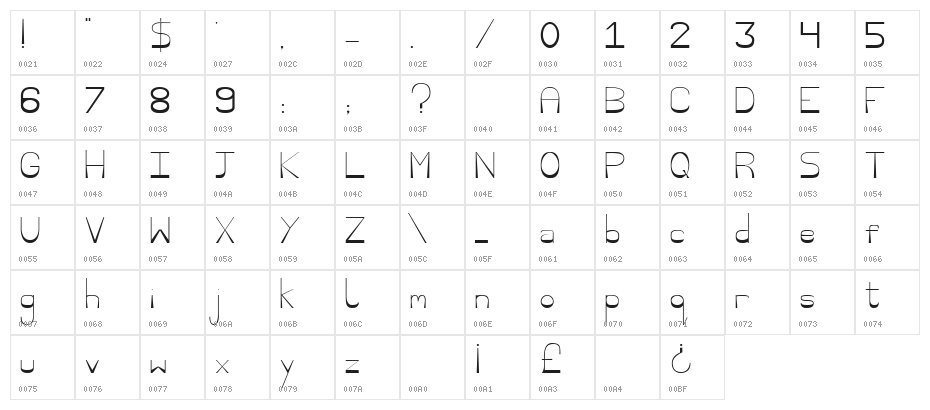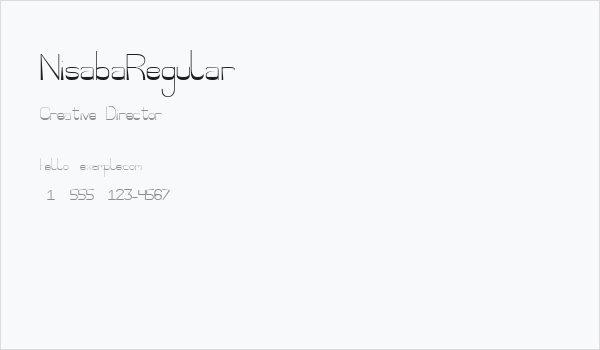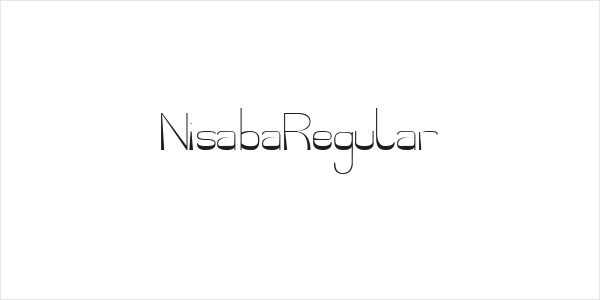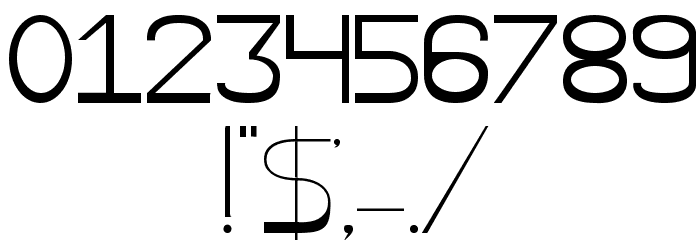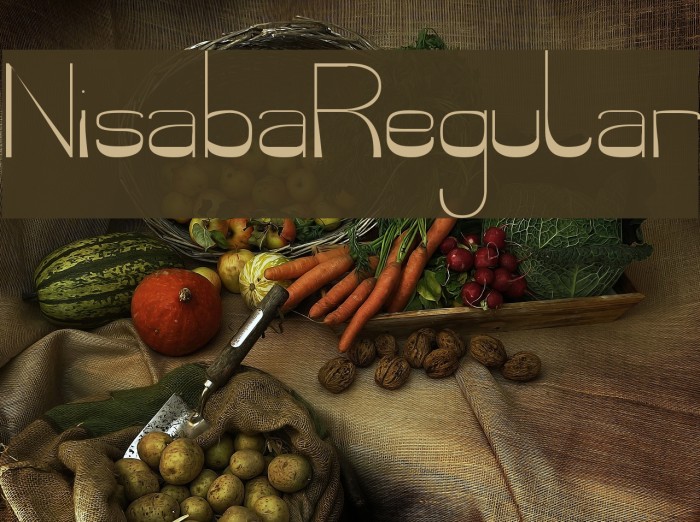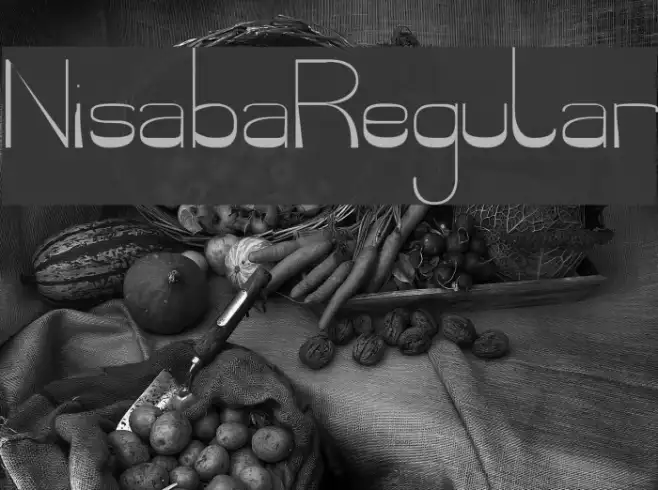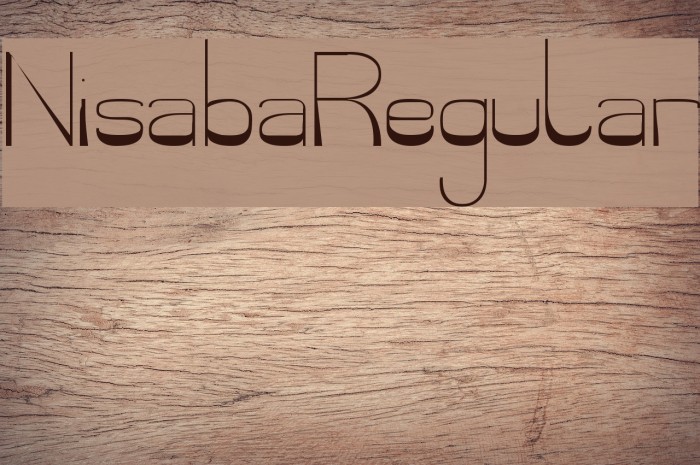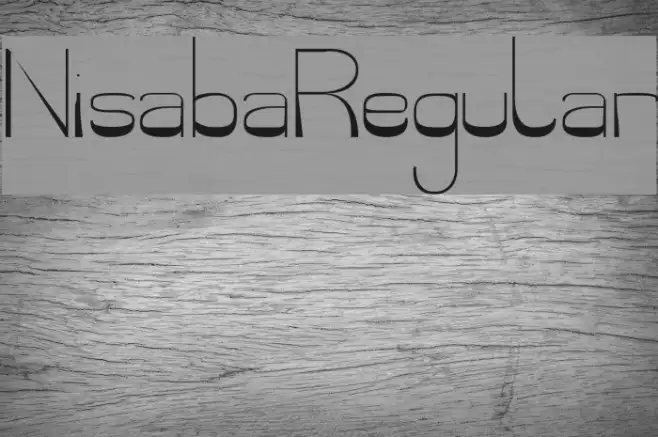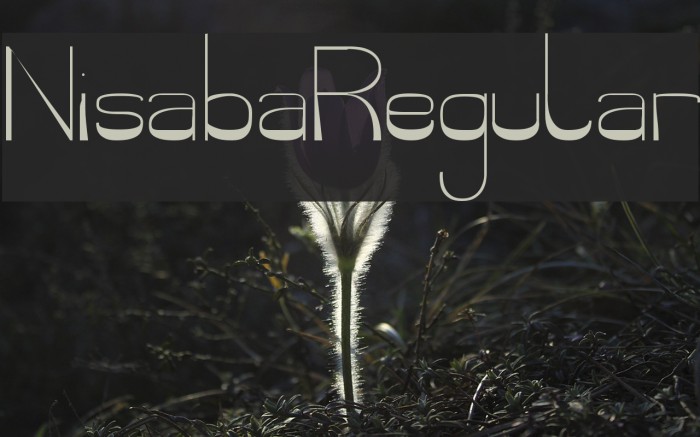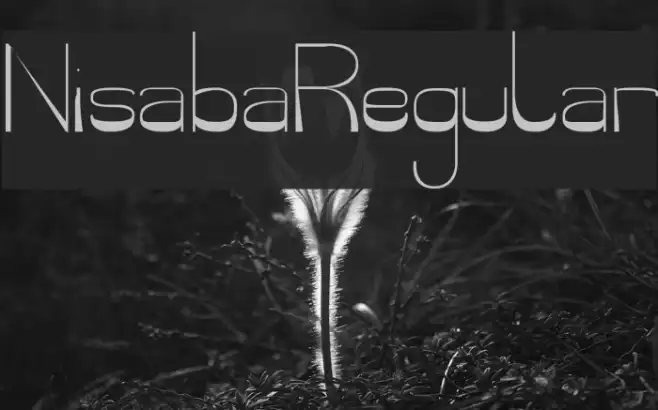
NisabaRegular Font
NisabaRegular Description
This font features a unique blend of geometric and modern design elements, characterized by its thin, elongated strokes and minimalistic style. The uppercase letters exhibit a distinct angularity, with sharp edges and clean lines, while the lowercase letters maintain a consistent height and rounded forms. The numerals are bold and structured, providing a strong visual presence. Special characters are crafted with precision, maintaining the overall aesthetic of the font. This typeface is both versatile and stylish, making it suitable for a variety of design applications.
| Proposed Projects | Ideal for branding, editorial design, and digital interfaces where a contemporary and clean look is desired. |